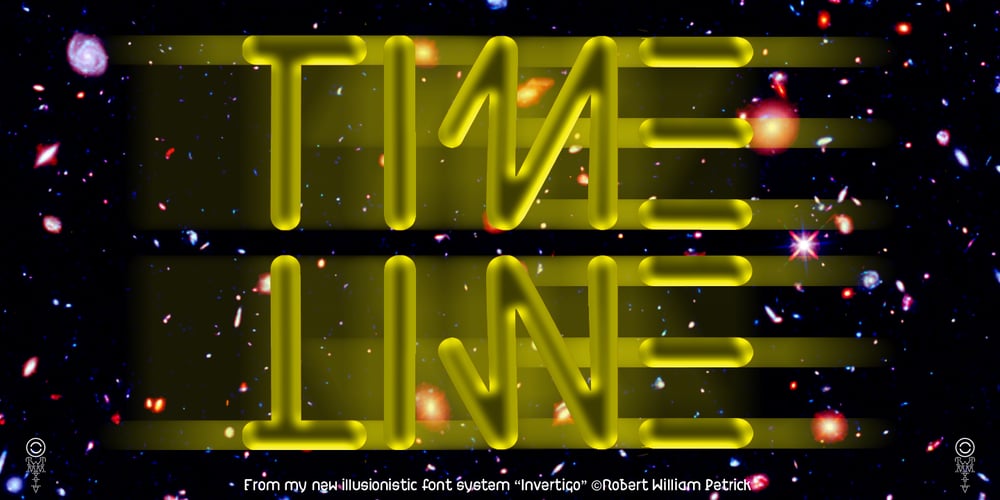
Invertigo
Invertigo font
Invertigo Font Family was designed by Robert Petrick and published by Robert Petrick. Invertigo contains 1 styles and family package options. Invertigo is an experimental font mainly for designers who love to play with type as you will see in my examples. There are many alternate letters for you to work with, and I will be creating new characters which I will add to Invertigo from time to time. If you purchase Invertigo, you will receive updates at no additional charge. It also makes an interesting looking setting somewhere between contemporary and futuristic.